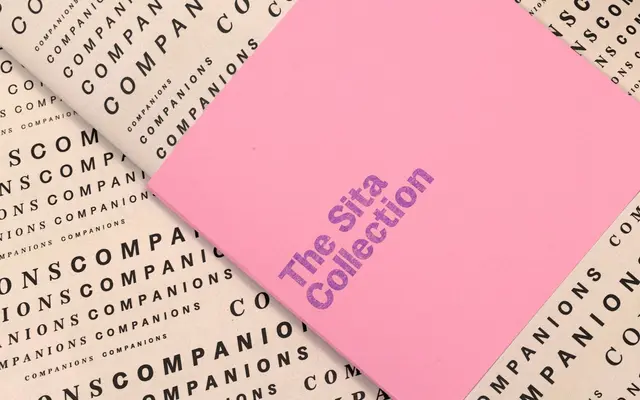
Sita
A superfamily of two styles sharing a common skeleton, drawing on 19th-century Scottish typographic traditions across transitional serif and grotesque sans genres.
Designed by Edouard Berard and mastered by Tiny Type Co., Sita pairs a transitional serif with a grotesque sans built on identical underlying structures, allowing the two families to sit together in harmony without sacrificing the genre-specific character of either. Each style runs through four weights from Regular to Black with corresponding italics, giving sixteen fonts in total. The historical grounding in Scottish 19th-century typography gives both families a considered specificity that lifts them beyond generic revival territory.
The collection pairs a transitional serif with a grotesque sans on a shared skeleton, both rooted in 19th-century Scottish typographic tradition. The serif family is the primary classification anchor, though the superfamily equally encompasses a grotesque sans counterpart.